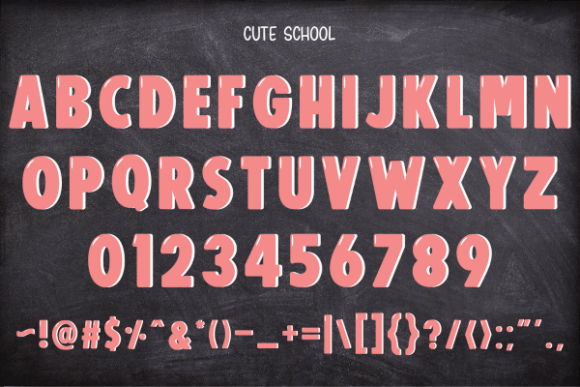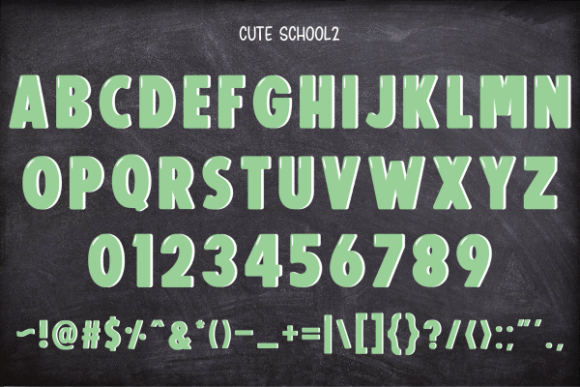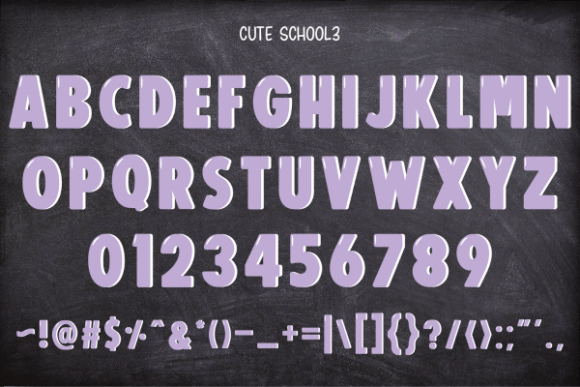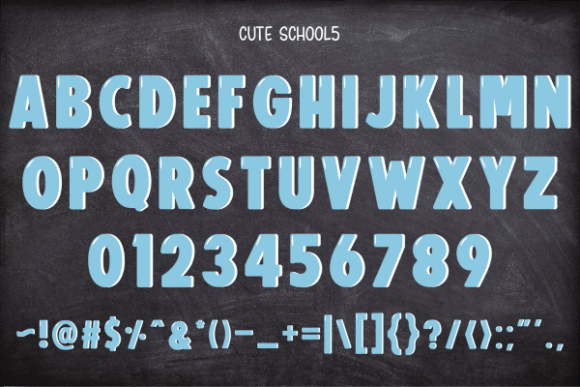
Introduction to Cute School Font
Meet ‘Cute School font,’ a remarkably bold font bursting with distinctive hues that captivate and charm.
This extraordinary typeface sets its mark with a unique design, making it an unmatched choice for a spectrum of inventive projects Its delightful allure makes ‘School’ a perfect fit for children’s entertainment and didactic themes, adding a playful and engaging ambiance to any design project.
Key Features of Cute School Font